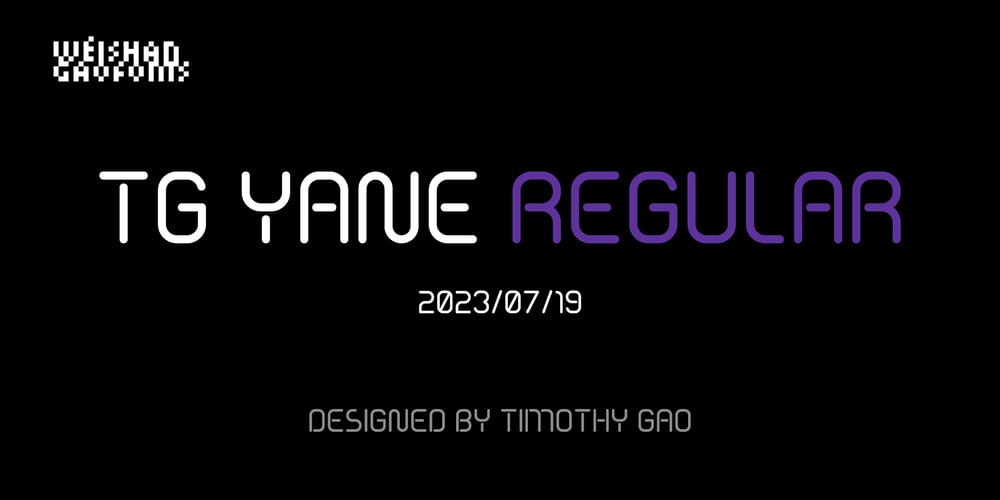
TG Yane
TG Yane font
TG Yane Font Family was designed by Weishan Gao and published by Weishan Gao. TG Yane contains 1 styles and family package options. The font design of TG Yane is inspired by my service design for a coffee brand, taking the coffee logo as the design origin. I supplemented the remaining letters, making the font suitable for applications in the catering, cosmetics, luxury goods, and other industries. The lines are soft and very creative. The entire character set is designed with the capital letter “O” as a circular element, ensuring a unified design language. I look forward to seeing it applied to your brand.